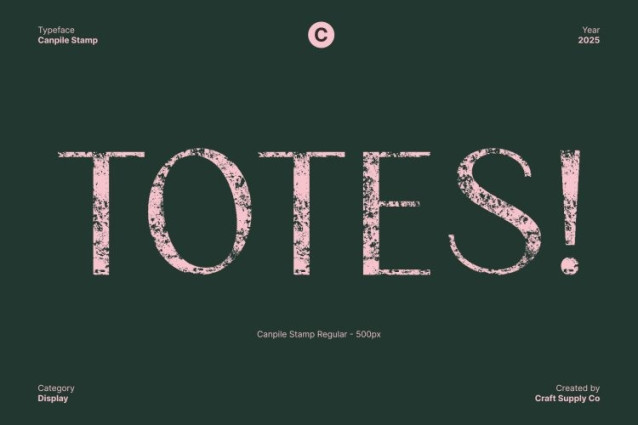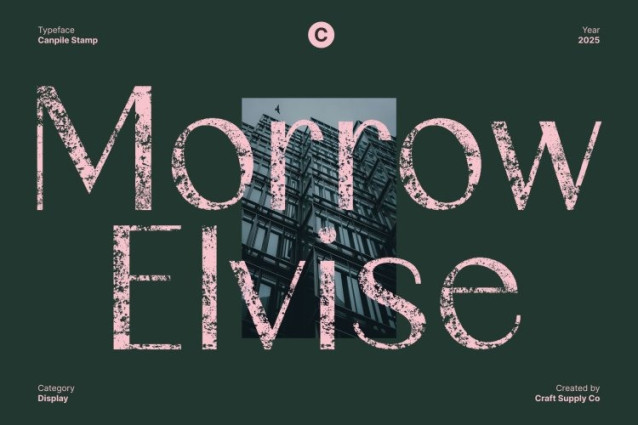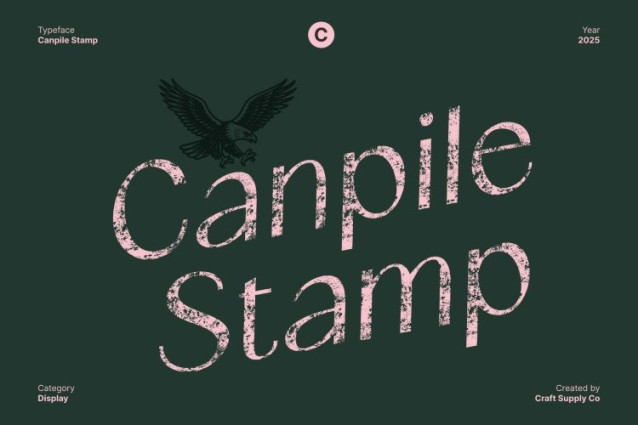
Canpile Stamp Font
Canpile Stamp Font This is a modern sans serif font designed with clean lines, strong structure, and a confident personality. Its balanced proportions and contemporary shapes create a clear, assertive look, making it an excellent choice for designers seeking a modern and impactful visual style.
Stamp Texture for Vintage Expression
A defining feature of this font is its stamp texture, which adds a handcrafted, vintage feel to its otherwise crisp and modern construction. This textured effect introduces expressive character and a subtle rustic quality, resulting in a compelling blend of modern clarity and artistic imperfection.
Ideal for Headlines, Branding, and Editorial Design
This font performs exceptionally well in headlines, branding systems, editorial layouts, and promotional materials. Its strong structure ensures high readability, while the stamp texture provides extra visual depth and personality. Whether used in digital or print media, this font stands out with clarity and style.
Blending Modern Strength with Artistic Edge
This typeface offers a harmonious balance between modern simplicity and artistic flair. Its clean sans serif foundation delivers a professional appearance, while the stamped texture enriches the design with added warmth and character. For designers needing a typeface that feels strong, stylish, and authentically expressive, this font is a powerful choice.